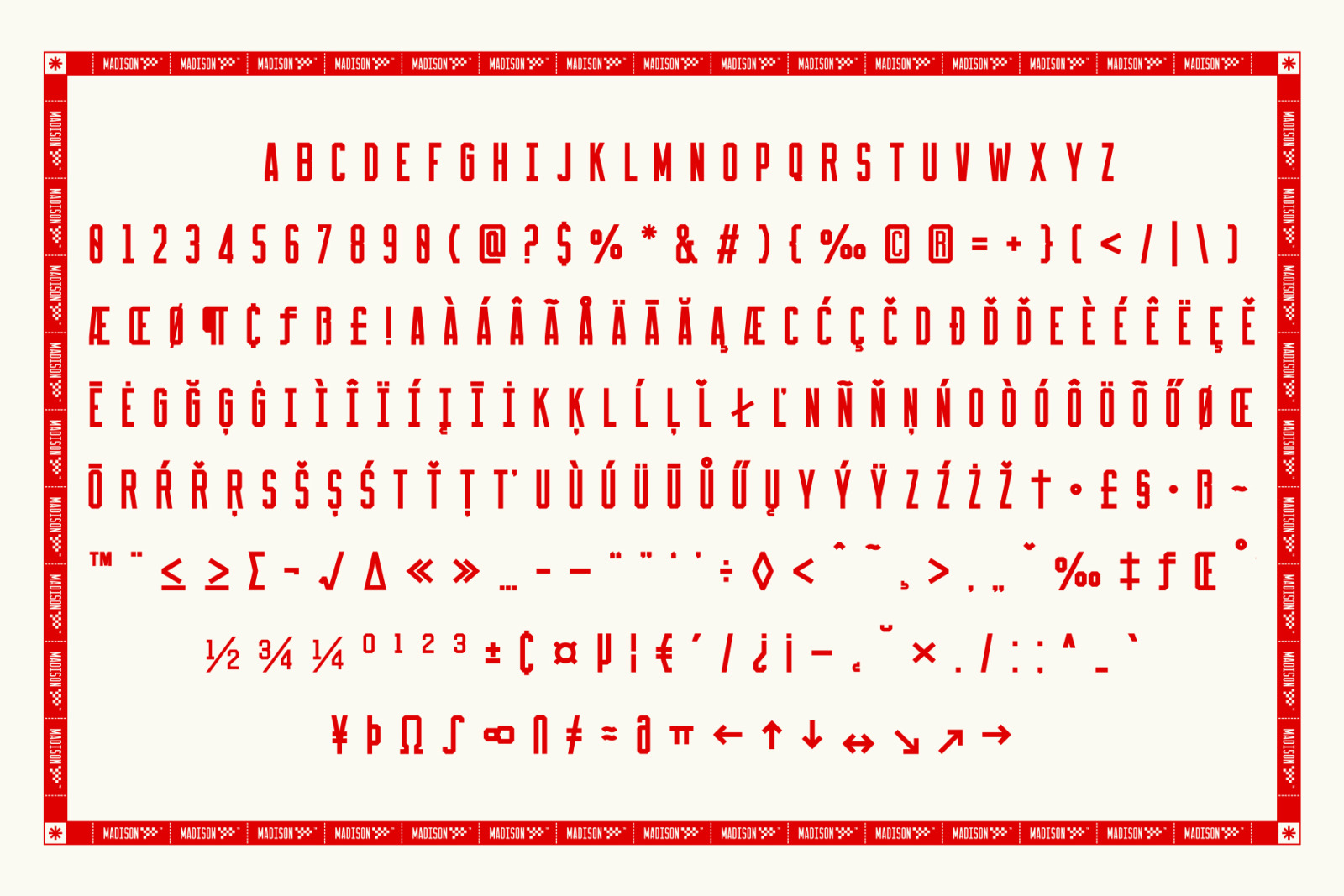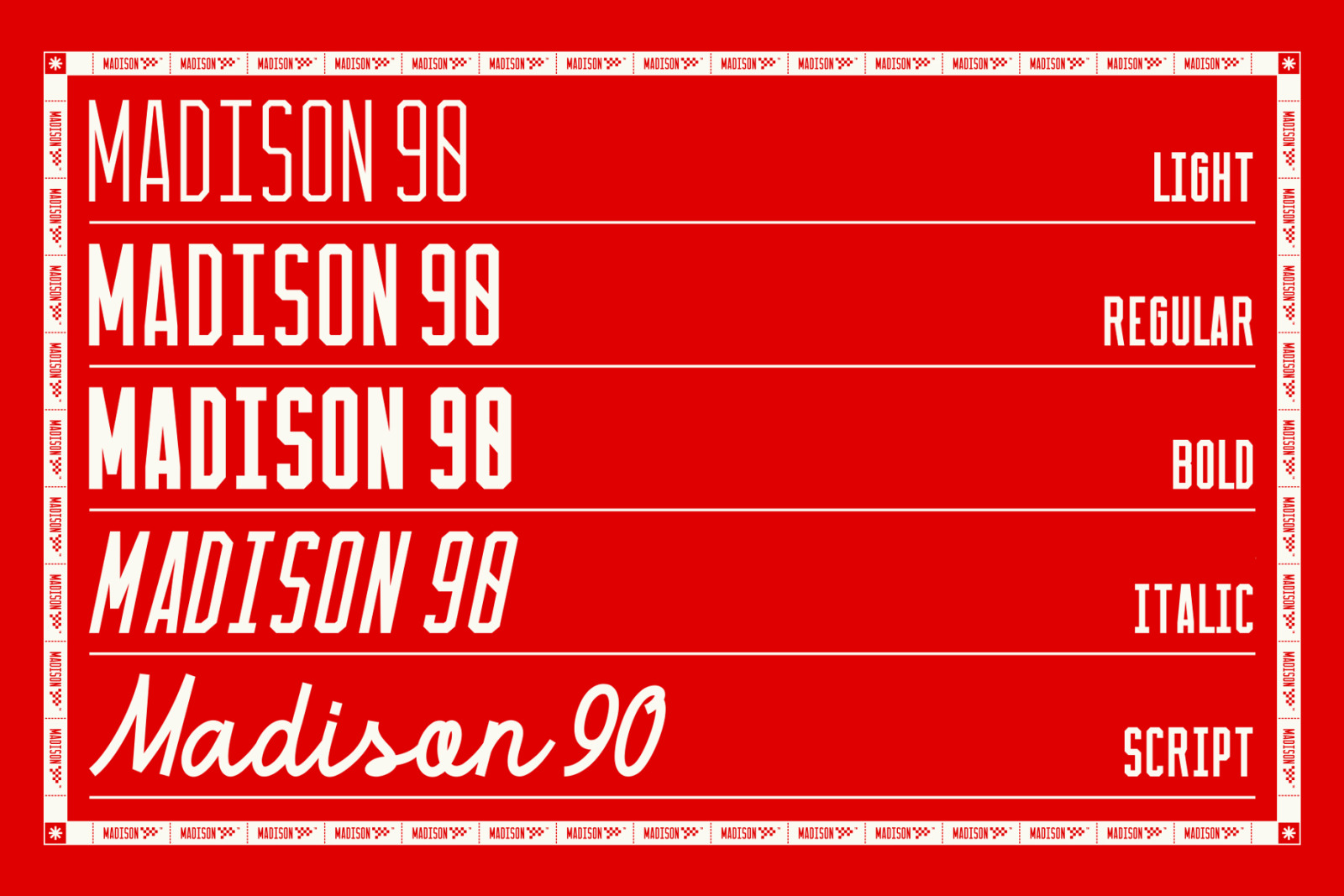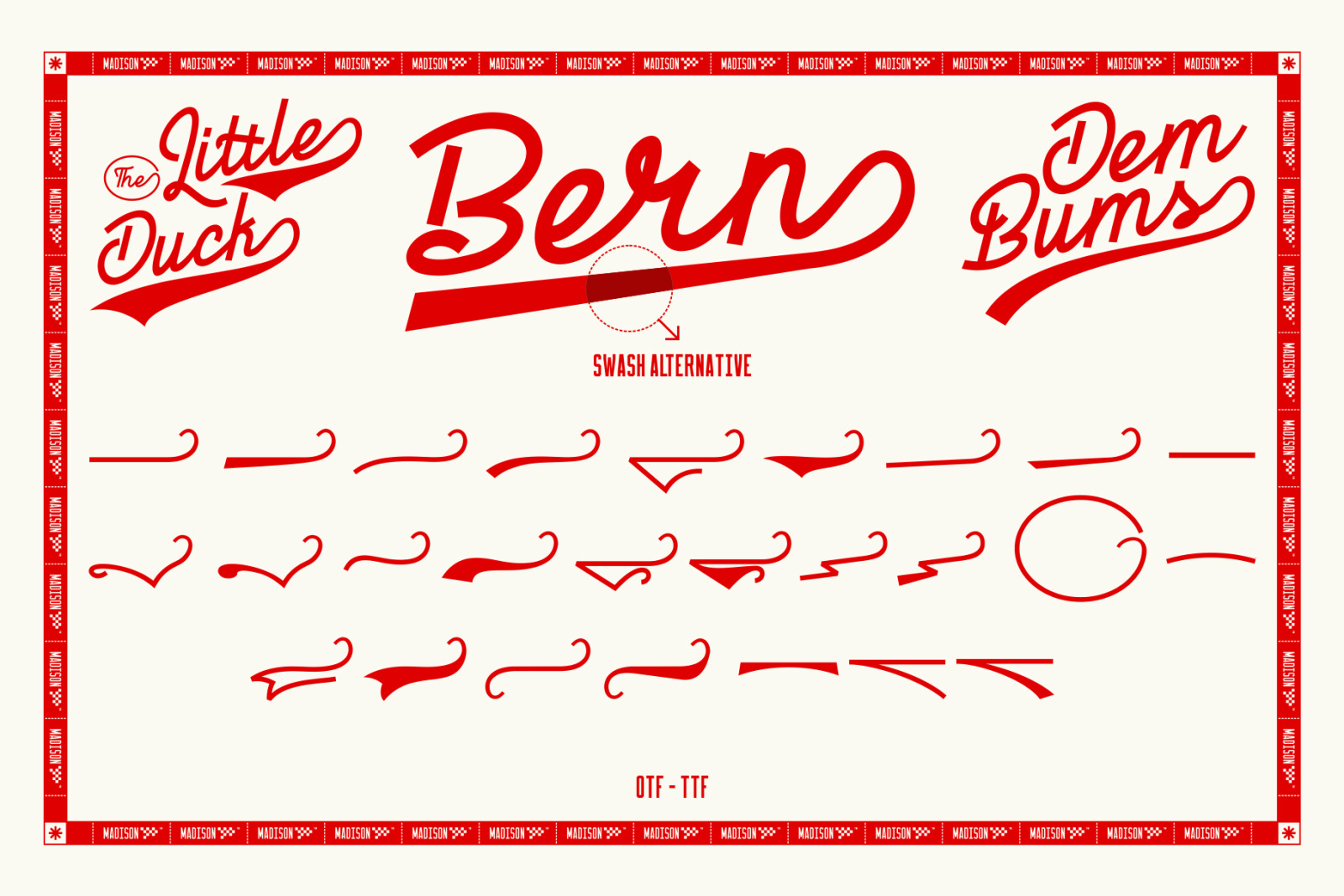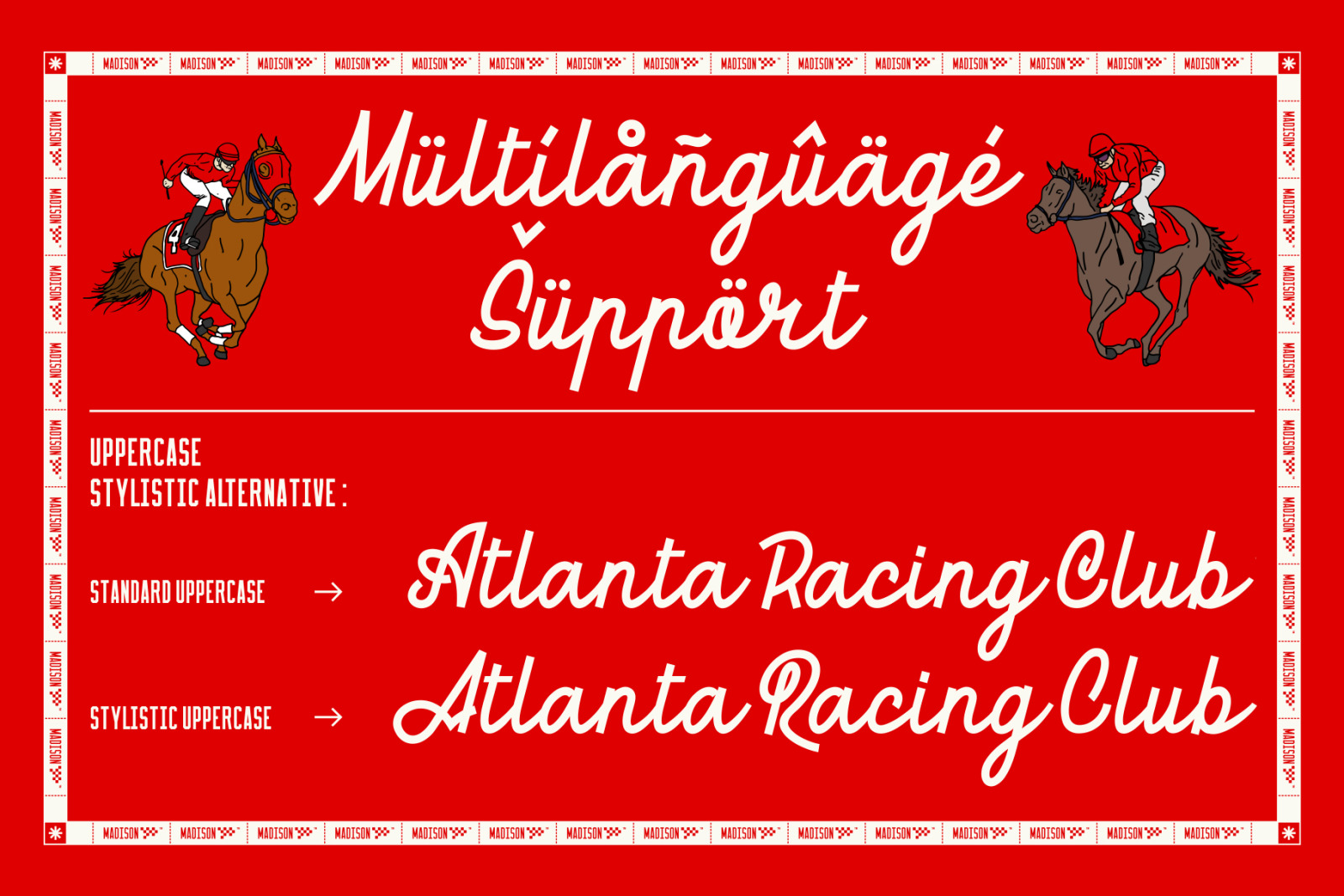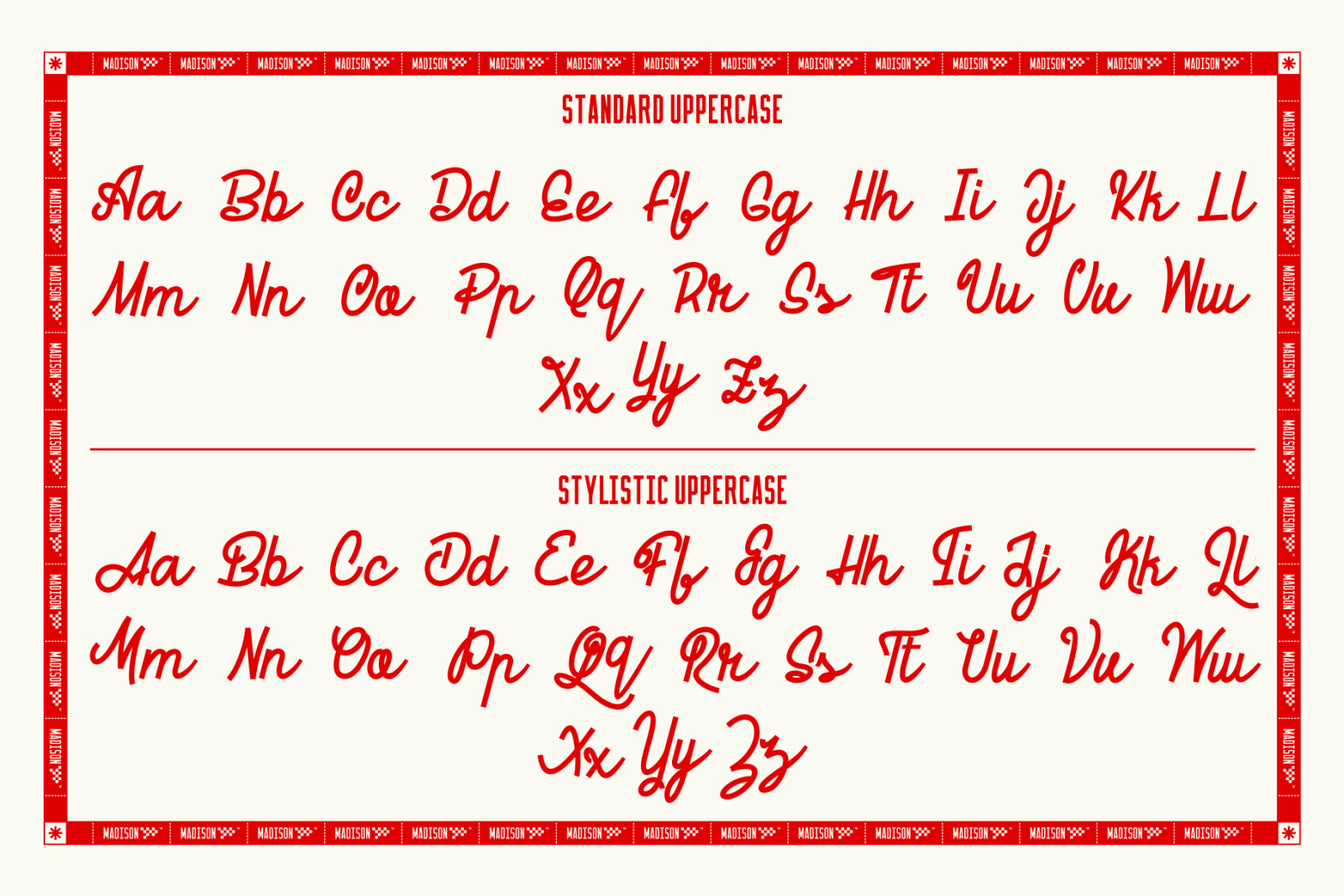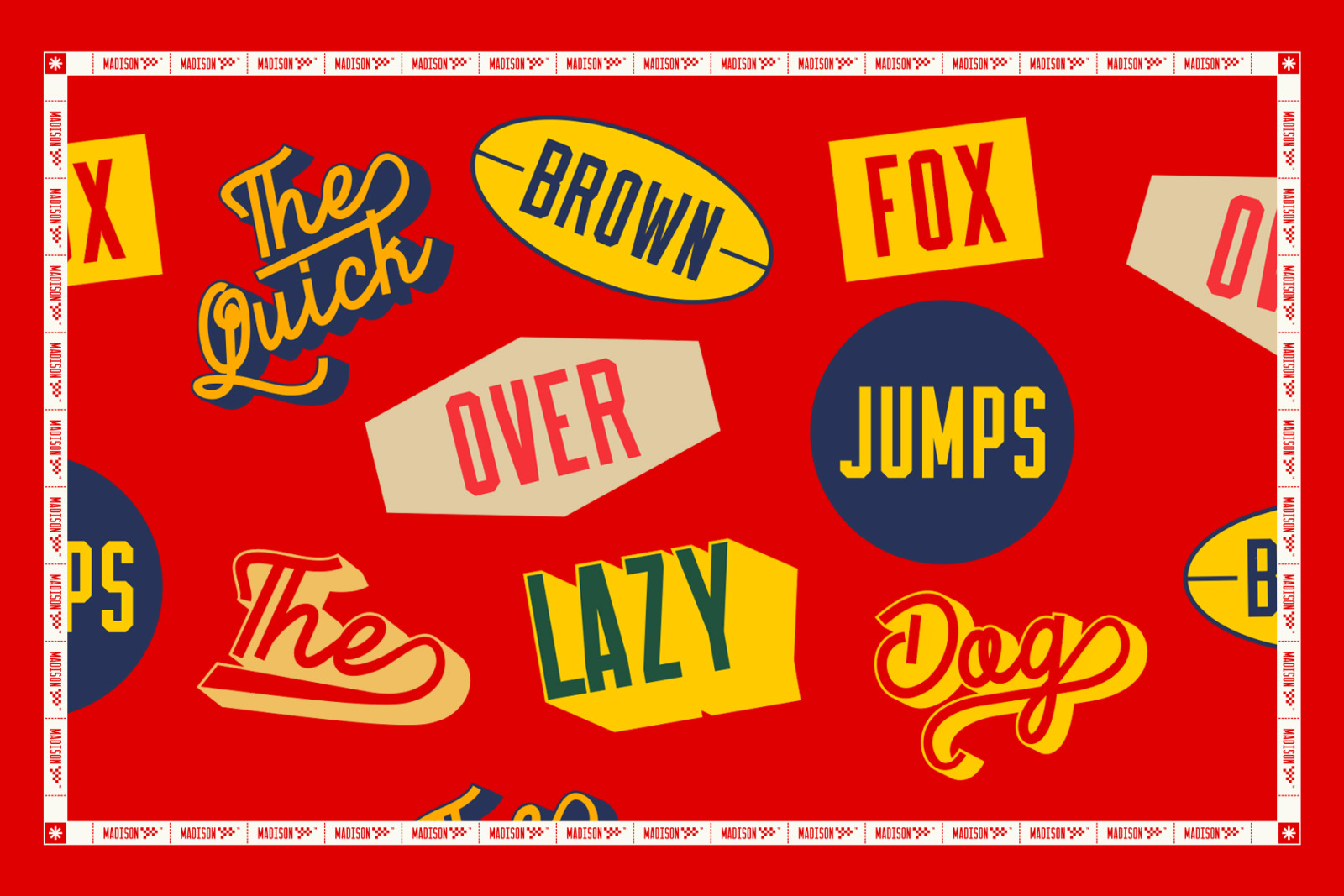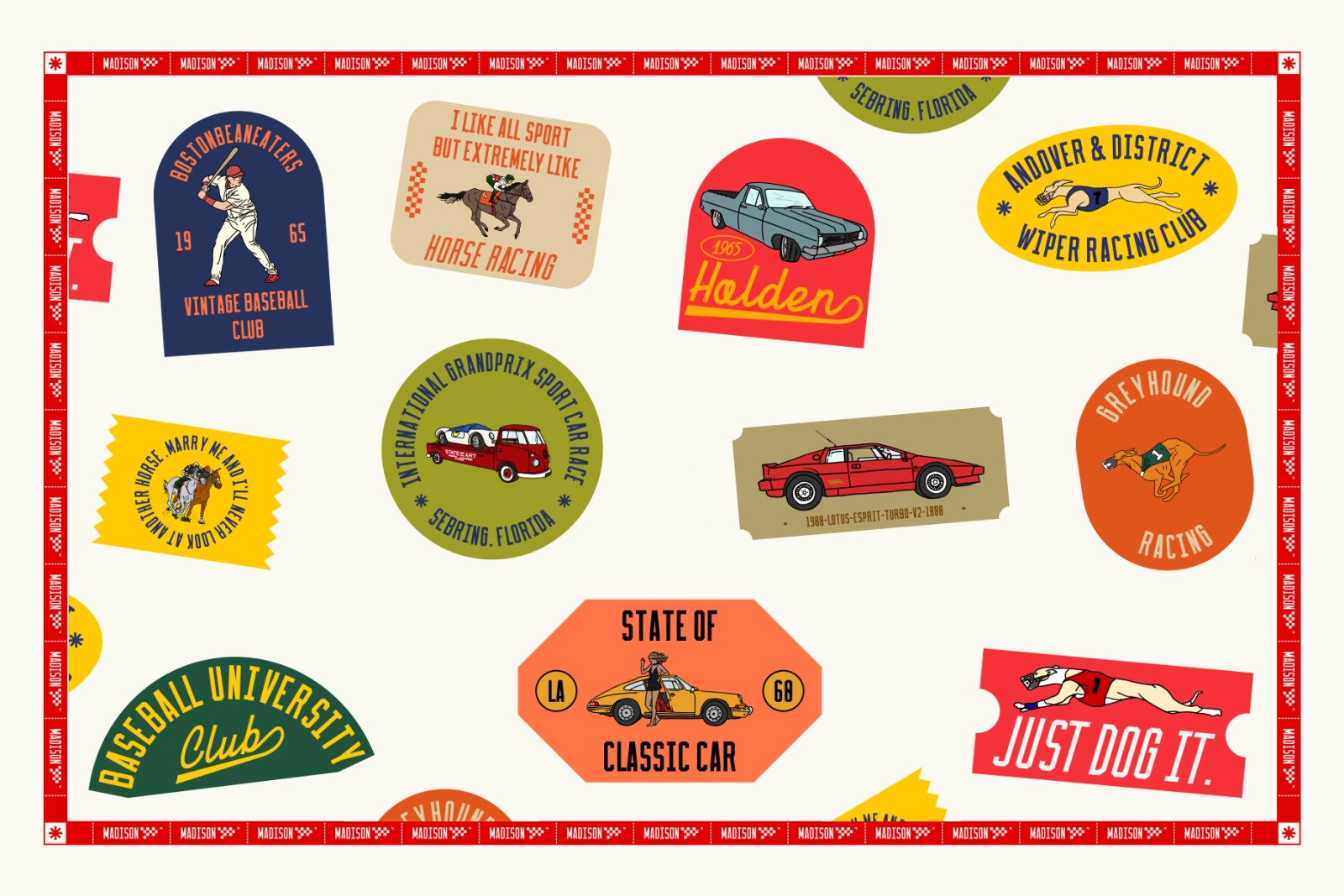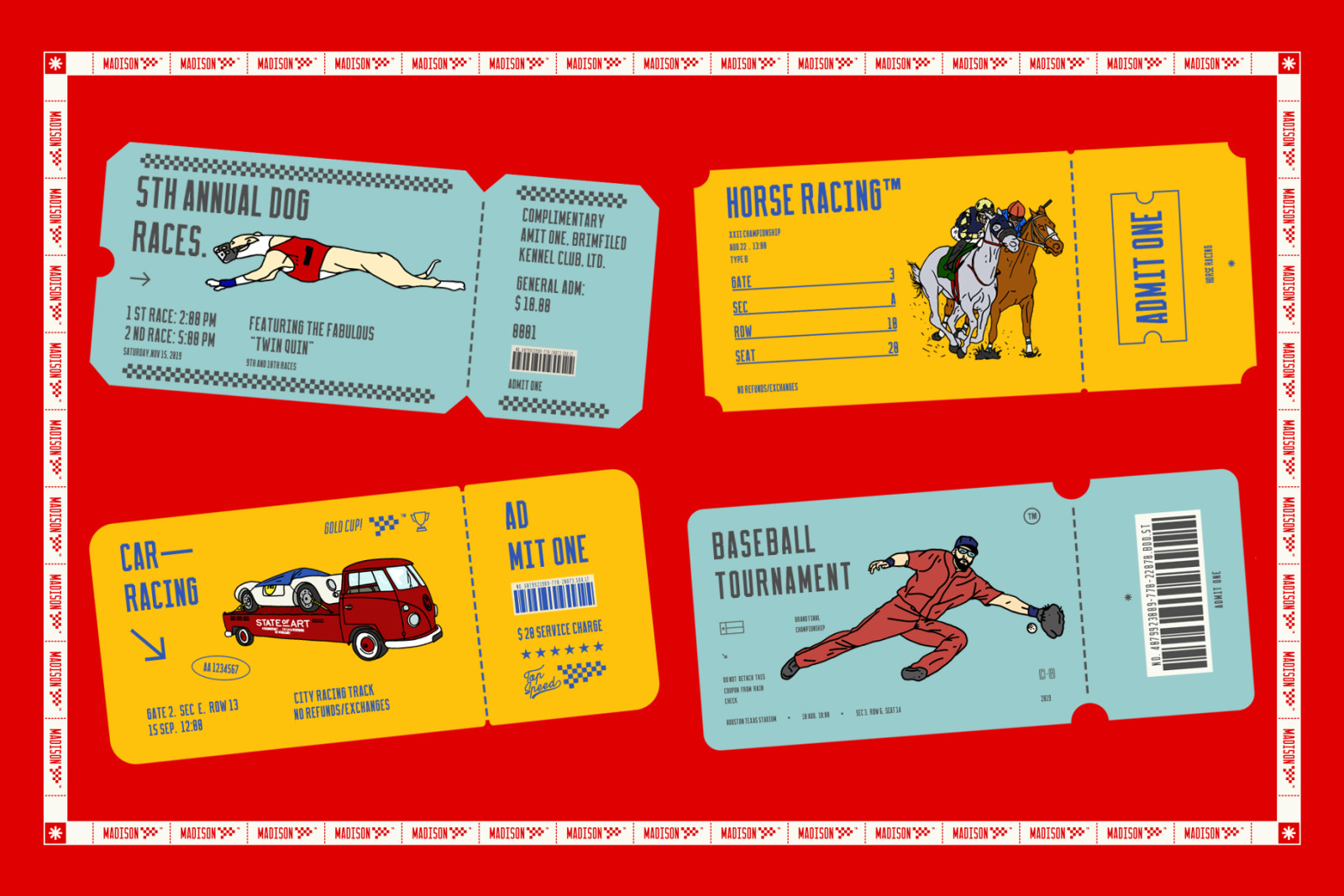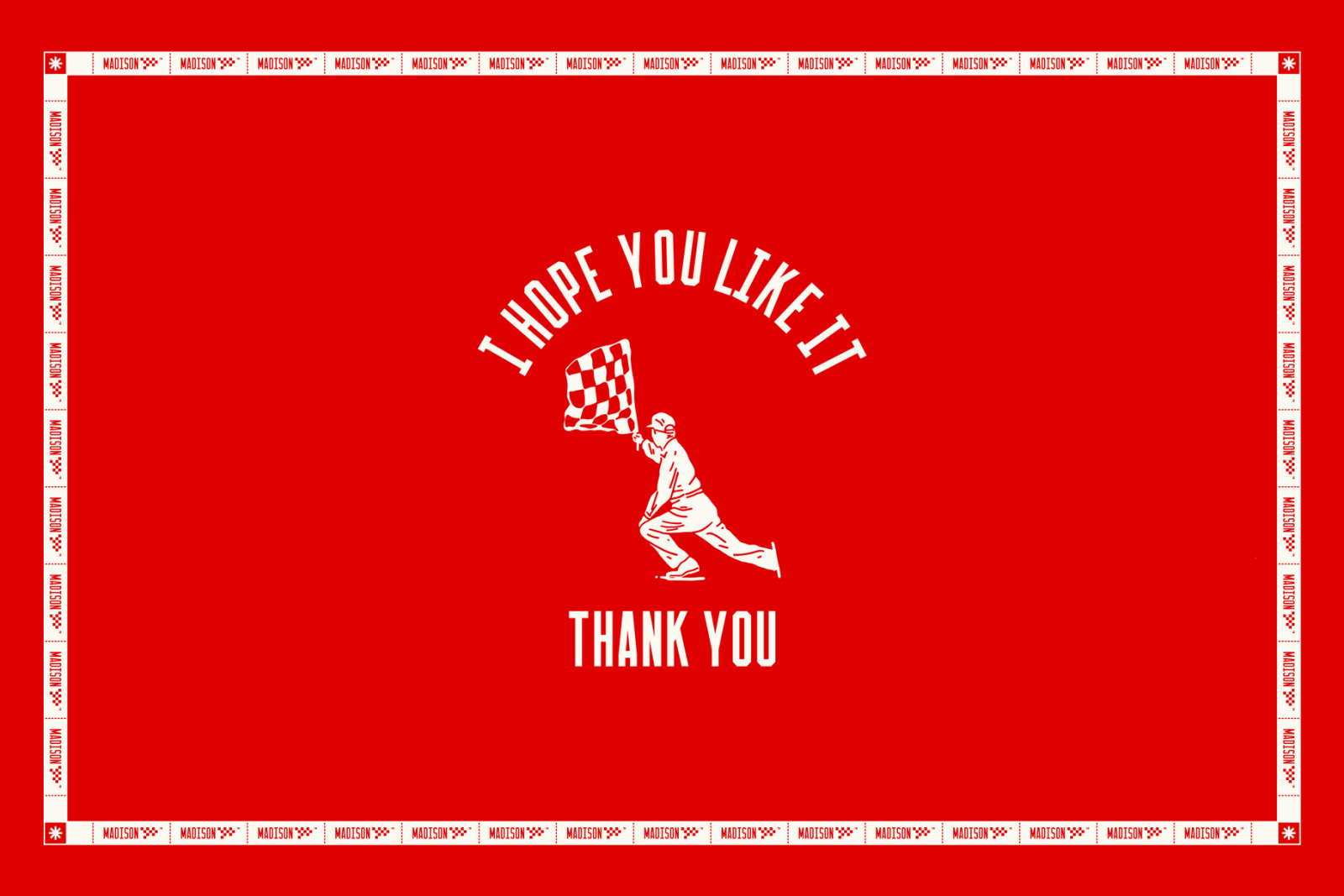
Madison | College Font + Vector Illustration
Madison is a bold, powerful and sporty font, perfect for sports logos, branding, posters, clothing designs with a bold and confident look. and also suitable for editorial / web titles. by adding some very detailed illustrations, of course this is very helpful to add elements to the design that you will make.
- 35 vector illustration pack includes: dog racing, horse racing and car racing.